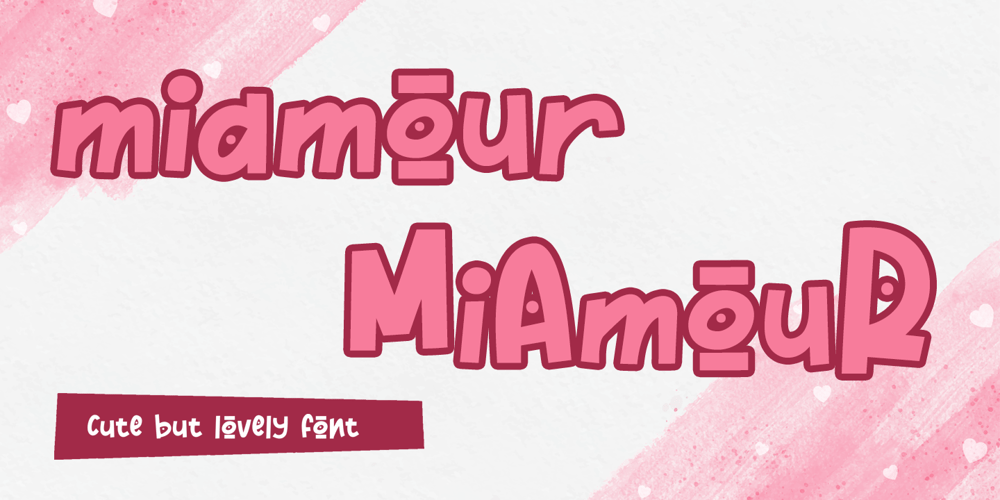
Miamour Font Family was designed by Doli Harahap and published by Tigade Std. Miamour contains 1 styles and family package options. Miamour is a cartoon-like and quirky display font. Get creative with its childlike style, and use it to brighten up any project. It will add an incredibly joyful touch to your designs. Add this beautiful display font to each of your creative ideas and notice how it makes them stand out!